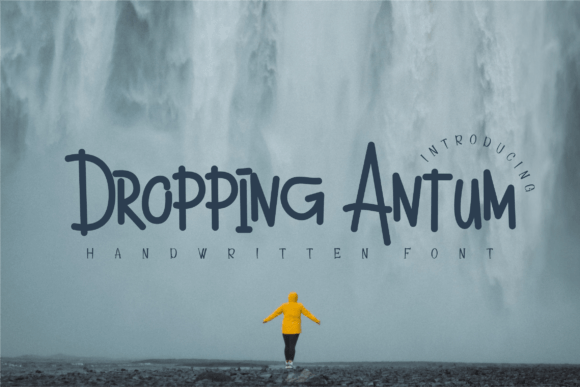
Creating a Masterpiece: The Birth of Dropping Antum Font
As designers, we’ve all been there – staring at a blank page, trying to bring a client’s vision to life. It’s that moment of inspiration when everything clicks, and the perfect font appears in your mind. For us, it was the birth of Dropping Antum Font, a unique and personalized font that captures the essence of handwritten elegance.
Dropping Antum Font is the culmination of our creative journey, carefully crafted to evoke the feel of real handwriting. This beautiful font is designed to add a touch of warmth and personality to various designs, making it a perfect fit for wedding invitations, thank-you cards, and greeting cards. For designers, Dropping Antum Font offers a valuable resource to create one-of-a-kind pieces that leave a lasting impression.
Dropping Antum Font Key Features
- Font Family: Dropping Antum
- Unique Characteristics: Dropping Antum features a unique, handwritten style with subtle brushstrokes and organic textures, adding a touch of personality to any design.
Dropping Antum Font Review
Overall, I found the Dropping Antum Font to be a decent choice for design projects, especially those requiring a modern and minimalist aesthetic. ✨ Its clean lines, rounded edges, and subtle details make it suitable for various applications, including headings, titles, and body text.
One of the standout features of this font is its legibility. ✨ It’s highly readable even at smaller font sizes, making it a great option for digital content, such as websites, mobile apps, and social media platforms. Additionally, the font’s versatility allows it to work well with different color schemes and backgrounds.
- ⚠️ Limited font weights and styles: The Dropping Antum Font has a relatively small number of font weights and styles, which might limit its use in projects requiring a wide range of typographic options.
- ⚠️ Not suitable for formal or professional settings: The font’s modern and playful design might not be suitable for formal or professional settings, such as business reports, academic papers, or financial documents.
Overall, I would recommend the Dropping Antum Font for design projects that require a modern and minimalist aesthetic. While it has some limitations, its legibility, versatility, and clean design make it a solid choice for various applications.
Dropping Antum Font is a versatile font that can be used for a variety of purposes, including:
- Quotes and captions
- Editorial and publishing content